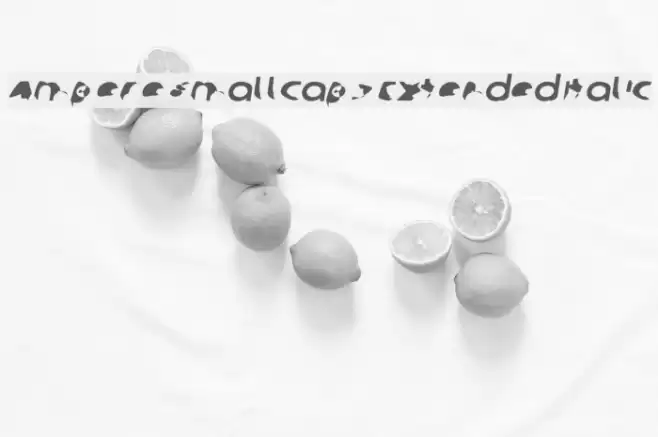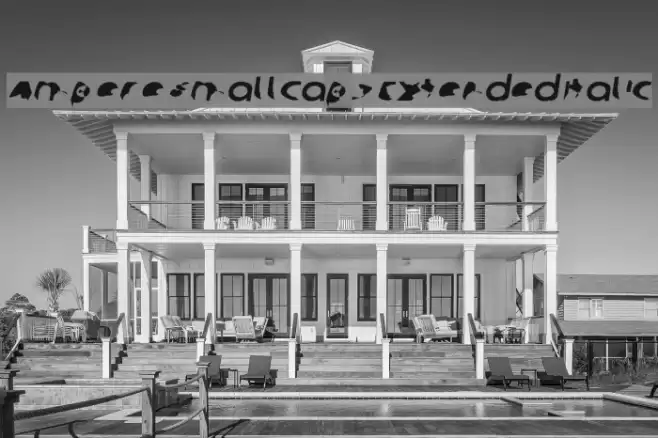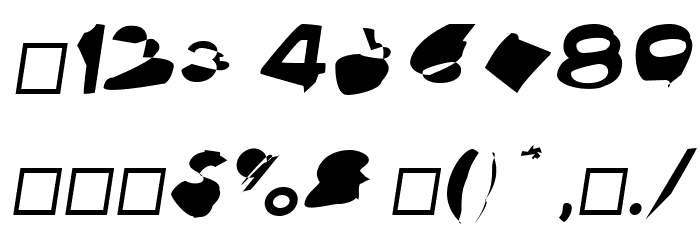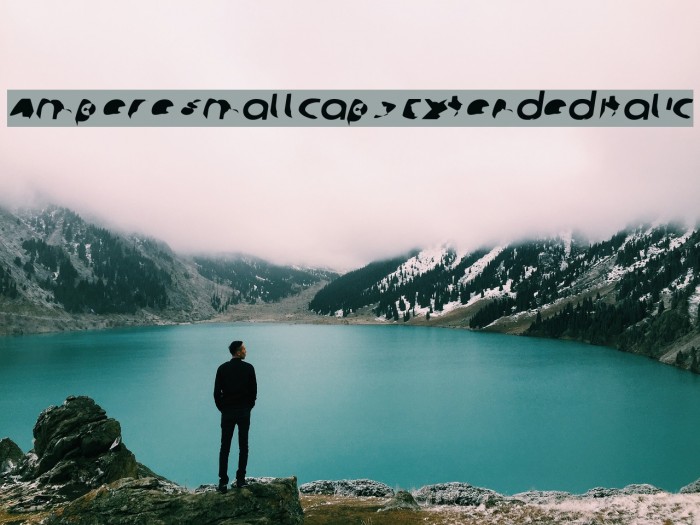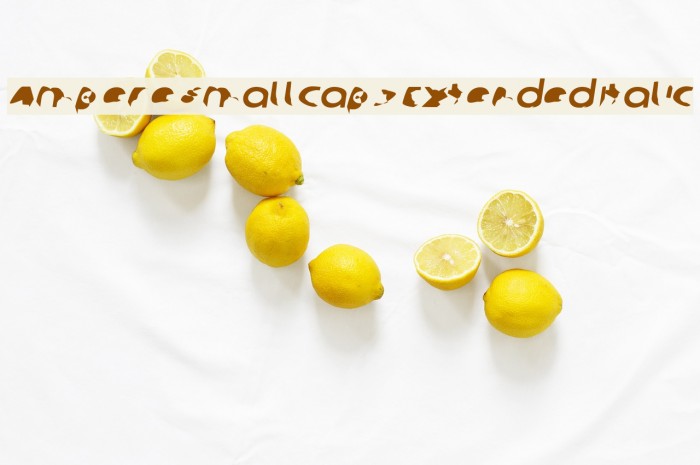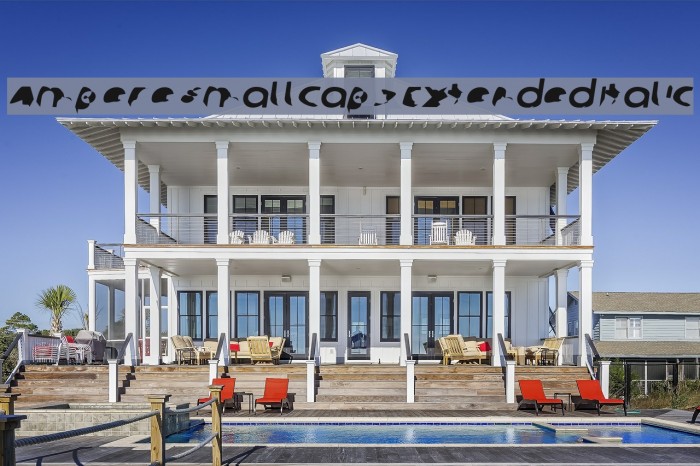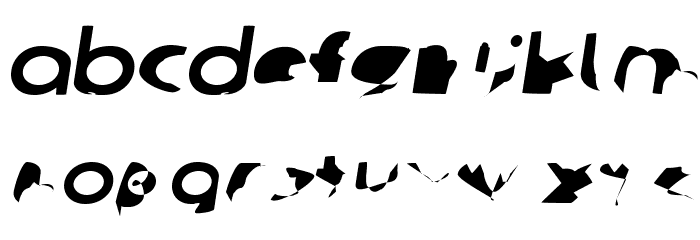
Ampere SmallCaps Extended Italic Font
Ampere SmallCaps Extended Italic Description
This font features a highly stylized and abstract design, characterized by its fragmented and distorted letterforms. The uppercase and lowercase letters, as well as numbers and special characters, exhibit a unique, deconstructed appearance that suggests a sense of movement and energy. The strokes are bold and irregular, with varying thicknesses that create a dynamic visual impact. The overall aesthetic is modern and avant-garde, making it suitable for projects that aim to capture attention and convey a sense of innovation and creativity.
A bold, abstract font with fragmented and dynamic letterforms from Uncategorized fonts.
- Proposed Projects: Ideal for avant-garde posters, album covers, experimental branding, and modern art projects.